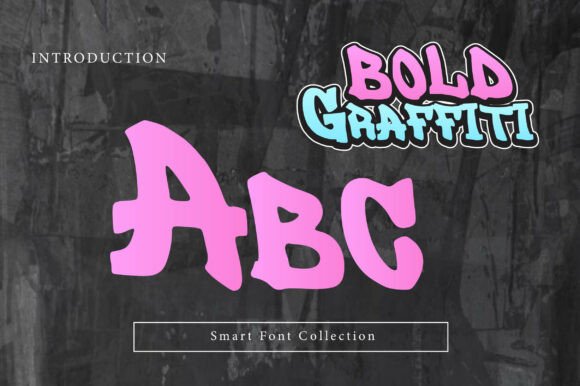
Unleash the Power of Bold Graffiti Font: Elevate Your Designs with Urban Flair
Are you looking for a font that embodies the raw energy of street art and modern hip-hop aesthetics? Look no further than Bold Graffiti, a powerful street-style display font that is sure to take your designs to the next level. Inspired by urban graffiti culture and bold hand-drawn lettering, this typeface is perfect for designers and crafters who want to add a rebellious and energetic vibe to their projects.
The Characteristics of Bold Graffiti Font
Bold Graffiti font is characterized by its thick strokes, playful curves, and expressive freehand flow. Its chunky structure and dynamic letterforms make it perfect for designs that demand attention and attitude. The font’s bold and edgy appearance is sure to grab the attention of your audience, making it ideal for posters, streetwear branding, YouTube thumbnails, album covers, social media graphics, stickers, and youth-focused creative projects.
Perfect for Urban-Themed Designs
Bold Graffiti font is specifically designed for urban-themed designs, making it perfect for streetwear and urban branding, posters and flyers, music and album covers, and YouTube thumbnails. The font’s bold and edgy appearance is sure to resonate with the urban crowd, adding a touch of authenticity to your designs. Whether you’re creating a brand identity for a streetwear label or designing a poster for a music festival, Bold Graffiti font is the perfect choice.
Key Features of Bold Graffiti Font
- Thick Strokes: The font features thick strokes that give it a bold and edgy appearance.
- Playful Curves: The playful curves in the font add a touch of creativity and expressiveness.
- Expressive Freehand Flow: The font’s expressive freehand flow gives it a dynamic and energetic feel.
- Chunky Structure: The font’s chunky structure makes it perfect for designs that demand attention and attitude.
- Dynamic Letterforms: The font’s dynamic letterforms add a touch of creativity and uniqueness to your designs.
Ideal Use Cases for Bold Graffiti Font
Bold Graffiti font is ideal for a wide range of design projects, including:
- Streetwear & Urban Branding: The font is perfect for creating bold and edgy brand identities for streetwear labels.
- Posters & Flyers: The font is ideal for creating eye-catching posters and flyers for music festivals, concerts, and other events.
- Music & Album Covers: The font is perfect for creating bold and edgy album covers and music-inspired designs.
- YouTube Thumbnails: The font is ideal for creating attention-grabbing YouTube thumbnails that stand out from the crowd.
- Social Media Graphics: The font is perfect for creating bold and edgy social media graphics that grab the attention of your audience.
- Stickers & Merchandise: The font is ideal for creating bold and edgy stickers and merchandise that appeal to the urban crowd.
- Youth & Hip-Hop Designs: The font is perfect for creating designs that appeal to the youth and hip-hop audience.
Why Choose Bold Graffiti Font?
Bold Graffiti font is the perfect choice for designers and crafters who want to add a rebellious and energetic vibe to their designs. The font’s bold and edgy appearance, combined with its versatility and ease of use, make it an ideal choice for a wide range of design projects. With Bold Graffiti font, you can:
- Add Bold Attitude: The font adds a bold and edgy attitude to your designs, making them stand out from the crowd.
- Convey Street Energy: The font conveys the energy and creativity of street art and modern hip-hop aesthetics.
- Elevate Your Designs: The font elevates your designs to the next level, making them more engaging and attention-grabbing.
In conclusion, Bold Graffiti font is a powerful street-style display font that is perfect for designers and crafters who want to add a rebellious and energetic vibe to their designs. With its bold and edgy appearance, versatility, and ease of use, this font is ideal for a wide range of design projects, from streetwear branding to social media graphics. So why wait? Download Bold Graffiti font today and unleash the power of urban flair in your designs!